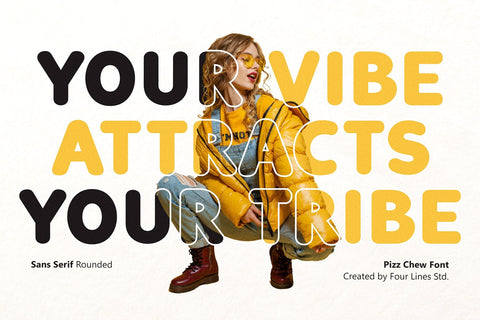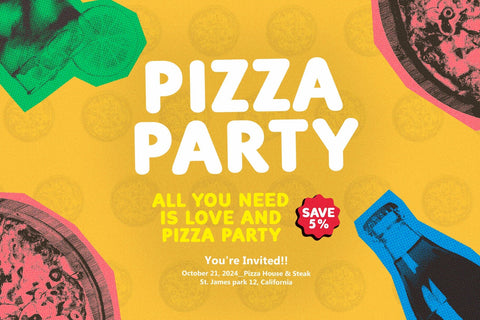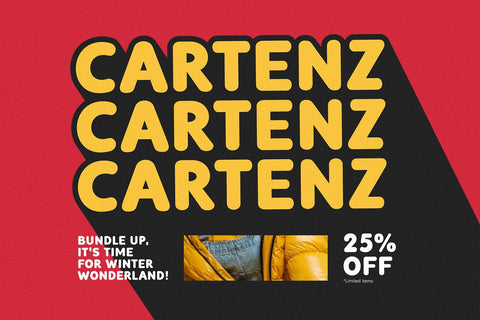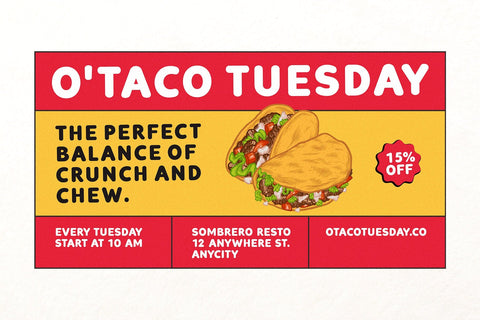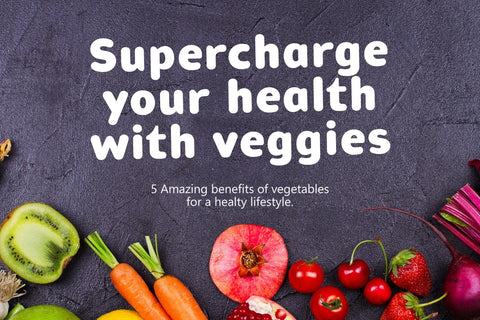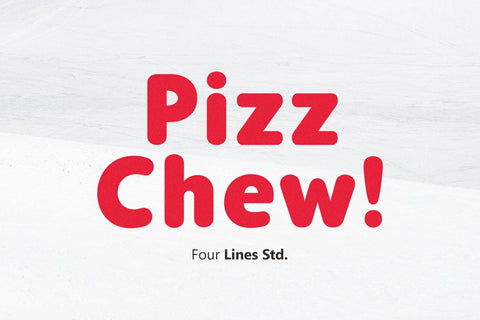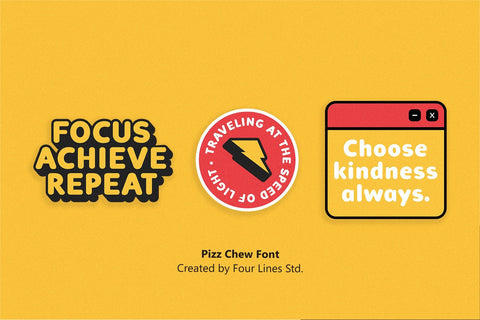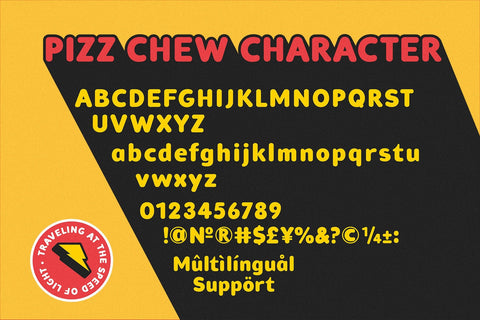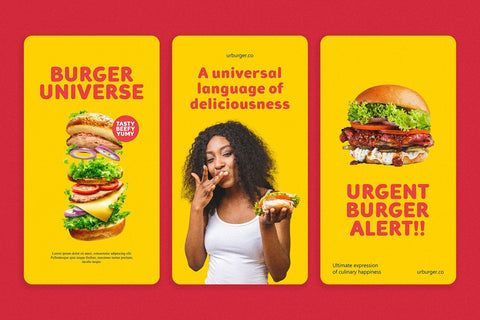
Pizz Chew – Playful Serif Typeface
Introducing Pizz Chew – With its clean and refined appearance, Pizz Chew combines the elegance of a serif with a modern, rounded edge that gives it a delightful, bubbly charm. The font’s balance of structure and playfulness makes it perfect for a variety of design needs, from branding to eye-catching headlines.